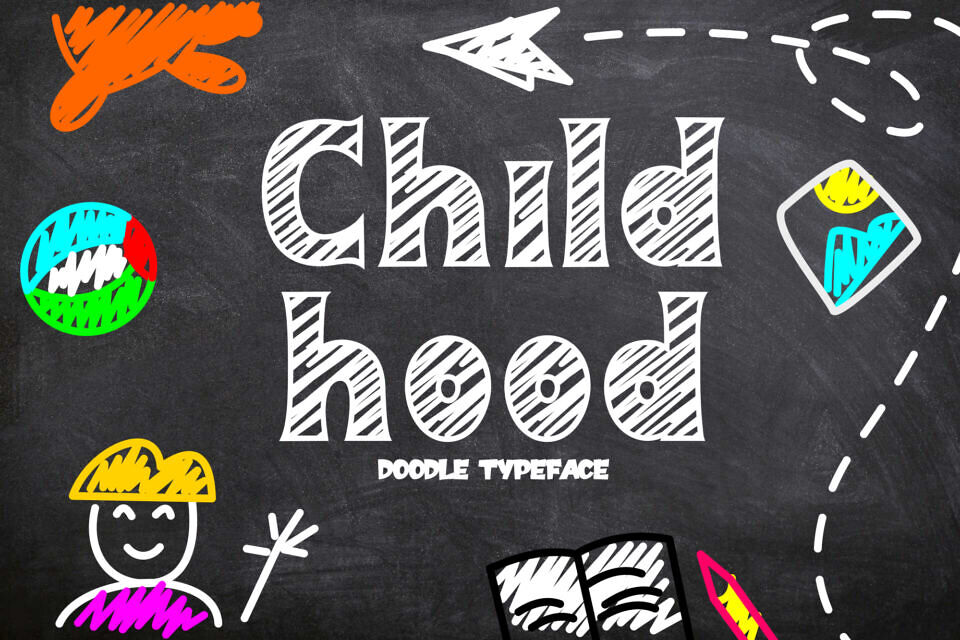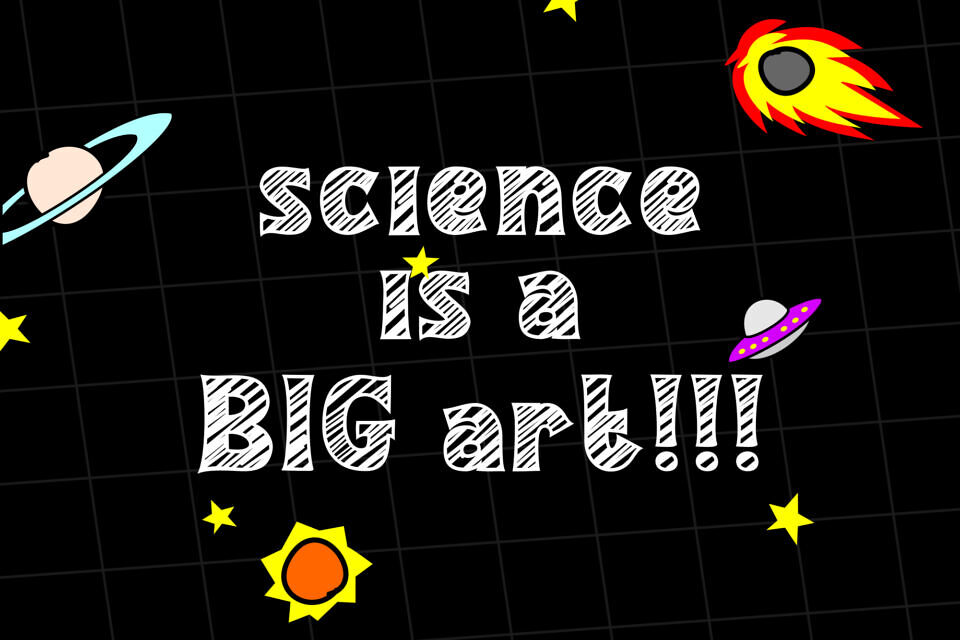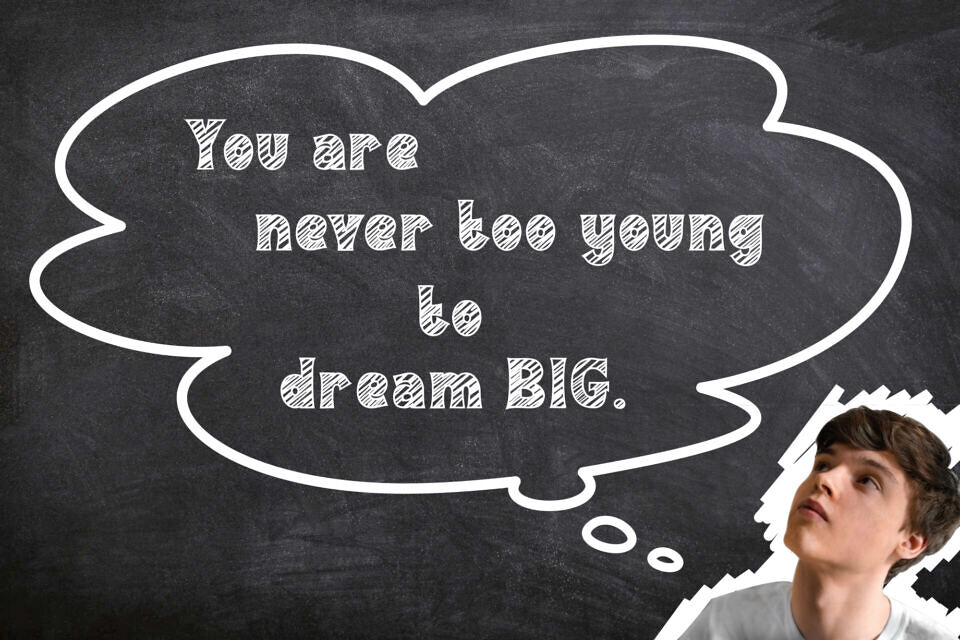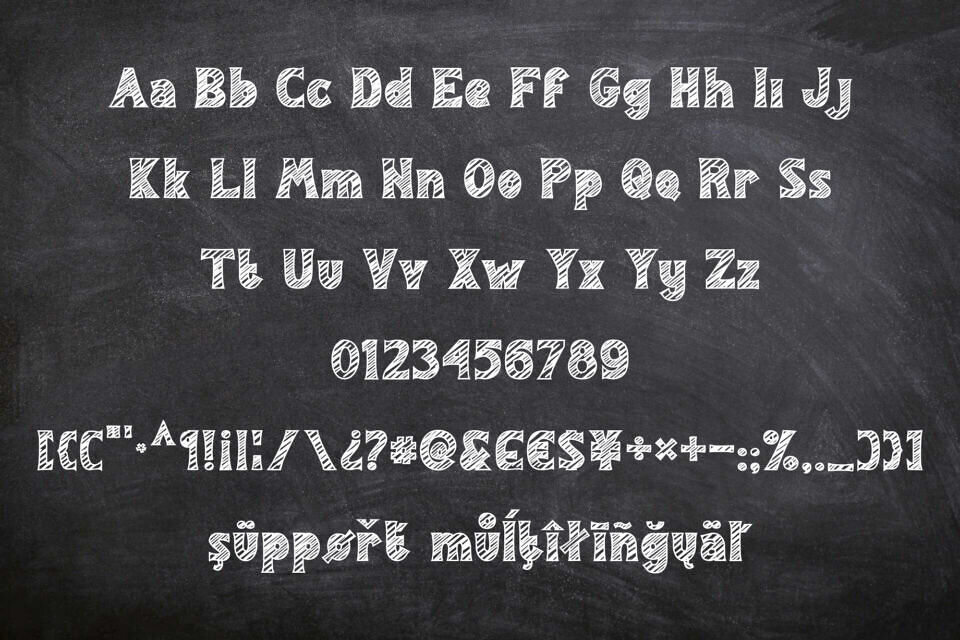
Child Hood is a joyful and fun duo font (display and dingbats). This font can be used for all chalkboard quotes or teaching material! Its authentic look and feel will add a personal and realistic feel to your designs.